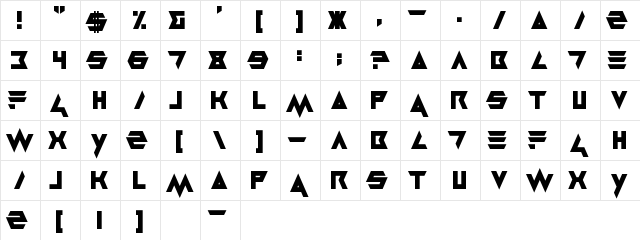
Masterblast Regular
| Designer | Andrew McCluskey |
Design Context for Masterblast Typeface
Masterblast is a composed and adaptable typeface that performs quietly and consistently across a wide range of design contexts.